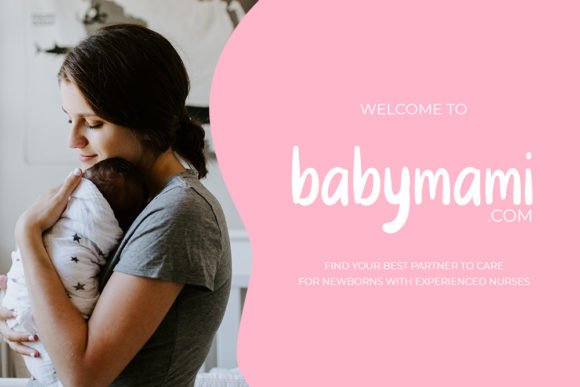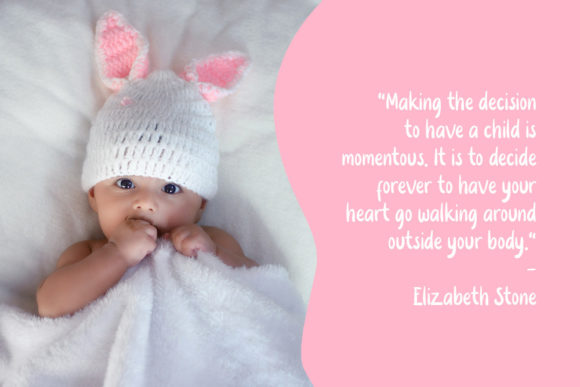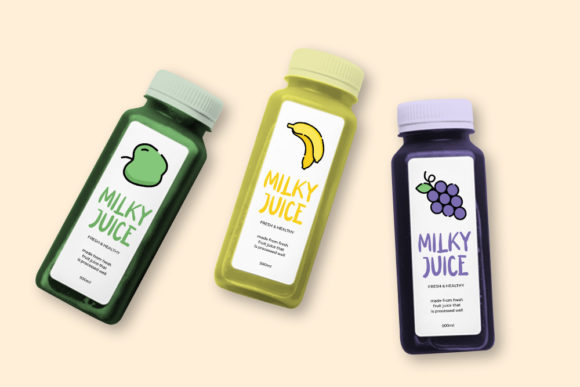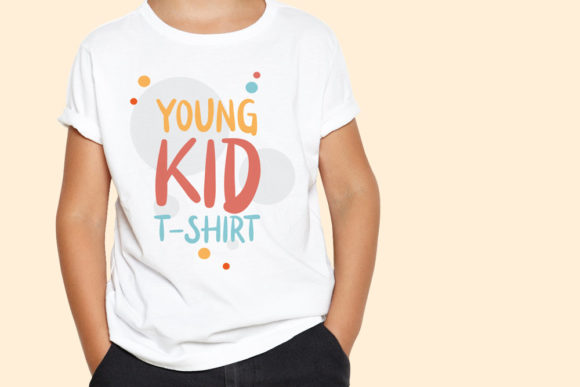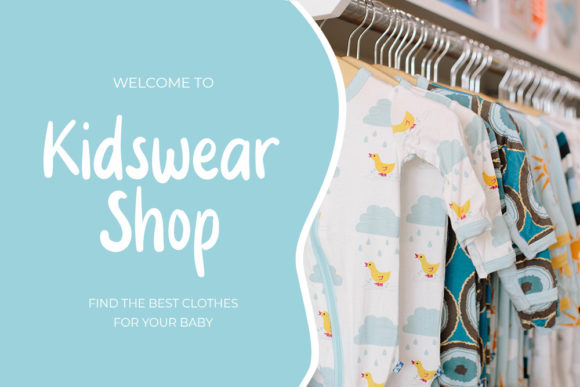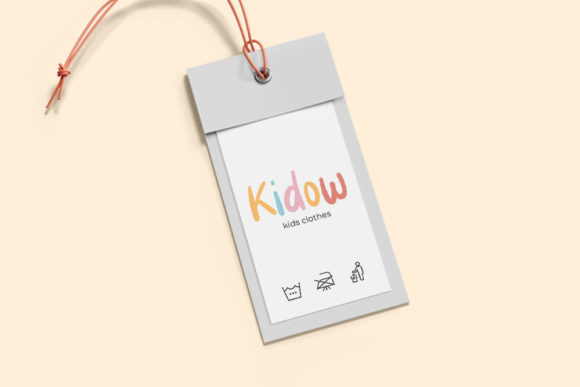
The Joy of Design: Discovering the Kidow Font
Do you remember that moment when you stumbled upon the perfect font for a project, and it instantly made everything come together? It’s that feeling of excitement and relief when you know you’ve found the perfect tool for the job. For designers, this moment can be a game-changer, and for some, it might just lead them to the wonderful world of Kidow Font.
Kidow Font is a delightful, easy-to-read display font that exudes friendliness and approachability. Whether you’re working on a craft project, designing a digital presentation, or creating a heartfelt greeting card, Kidow Font is the perfect companion to bring your ideas to life. Its versatility and charm make it an invaluable asset for designers who value simplicity and elegance in their work.
Kidow Font Key Features
- Font Family: Kidow Font is a unique, hand-drawn font designed for children’s content.
- Character Set: The font includes a wide range of characters, including uppercase and lowercase letters, numbers, and special characters.
- Unique Characteristics: Kidow Font features a playful, handwritten style with subtle imperfections, giving it a personal touch that appeals to children.
Kidow Font Review
As a designer, I was excited to dive into the Kidow Font and see what it has to offer. Here’s my honest review.
- ✨ Unique aesthetic: The Kidow Font has a distinctive, playful feel that can add a touch of whimsy to your designs.
- ✨ Friendly readability: Despite its unusual design, the font is surprisingly easy to read, making it a great choice for body text.
- ✨ Wide language support: The Kidow Font supports a wide range of languages, making it a great option for international projects.
- ⚠️ Limited flexibility: While the font is great for body text, it can be a bit too playful for headings and titles, which may limit its versatility.
- ⚠️ Limited bold weight options: The font’s bold weight is a bit too aggressive, which can make it difficult to read in certain contexts.
The Kidow Font is a fun and quirky addition to any designer’s toolkit. While it may not be the most versatile font, it’s perfect for projects that need a playful touch. If you’re looking for a font that’s sure to stand out, the Kidow Font is definitely worth considering.
Introduction to Kidow Font
The Kidow font is a unique and elegant script font that can add a touch of sophistication to your designs. To use Kidow font in your favorite design software, follow these steps:
Tips for Getting the Most Out of Kidow Font
Use Kidow font for invitations, wedding stationery, and other formal events.
Experiment with different font sizes, colors, and styles to create unique and eye-catching designs.
Combine Kidow font with other elegant fonts for a sophisticated look.
Kidow font is perfect for:
Formal event invitations
Luxury brand logos and marketing materials
High-end product packaging and labeling
Comparison: While Kidow Font has a unique, handwritten feel, Noto Sans is more legible and easier to read. Noto Sans is also more suitable for large blocks of text, making it a better choice for long-form content.
Q: What is the recommended font size and line height for the Kidow Font?
For optimal readability, we recommend using the Kidow Font at a minimum size of 12 points (12pt) and a line height of at least 1.5 times the font size. This will ensure that the text is clear and easy to read, even at smaller sizes.